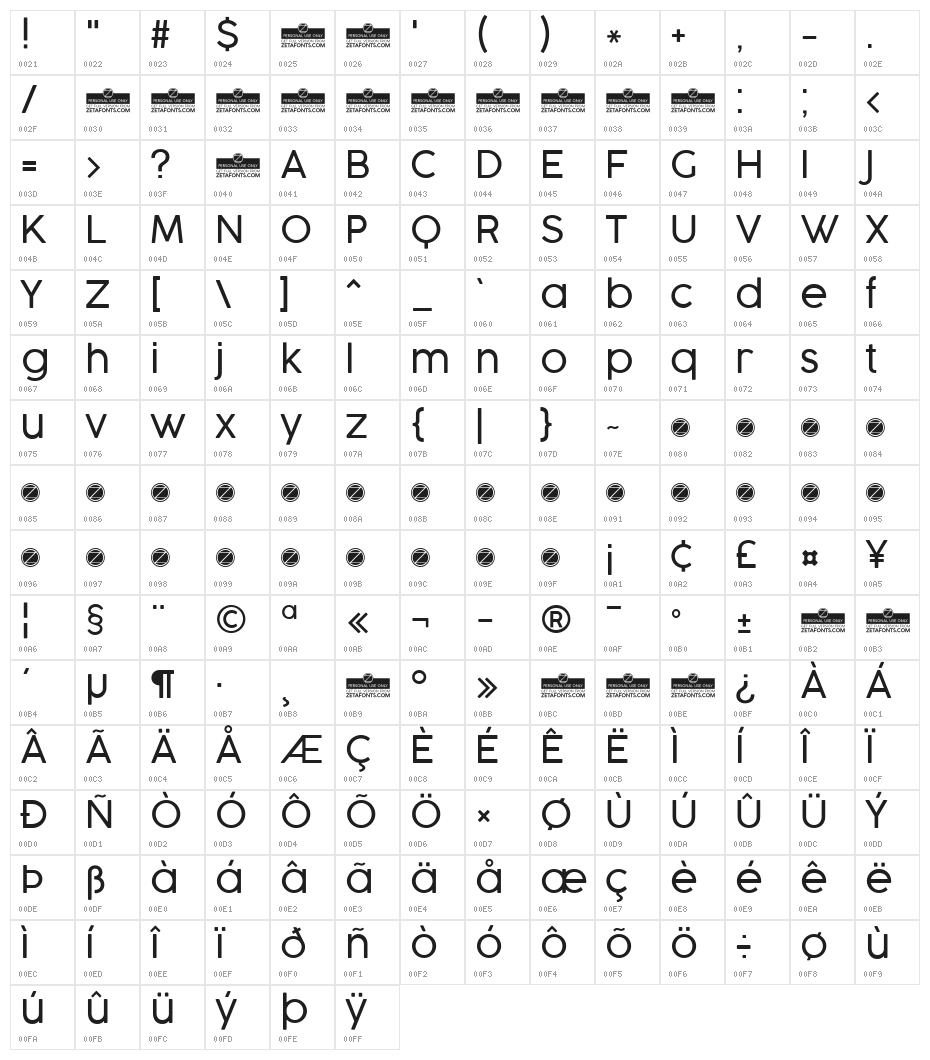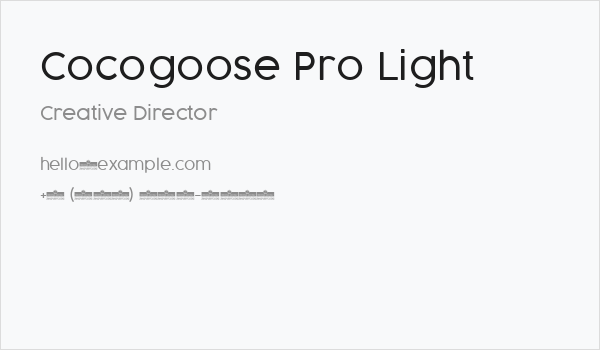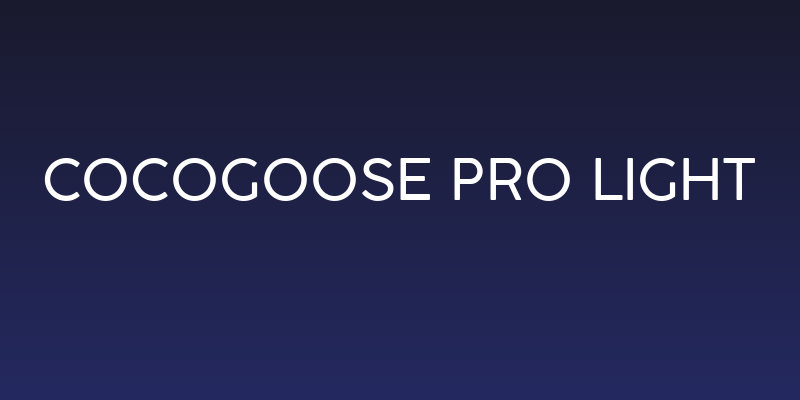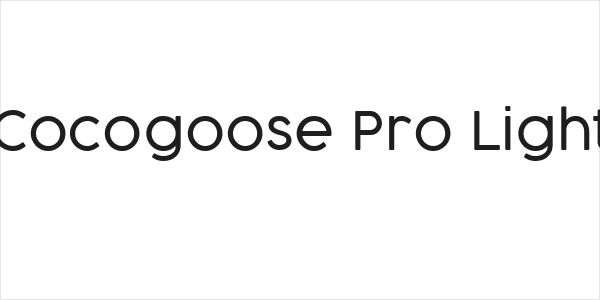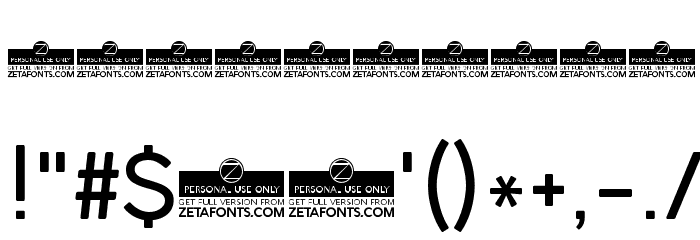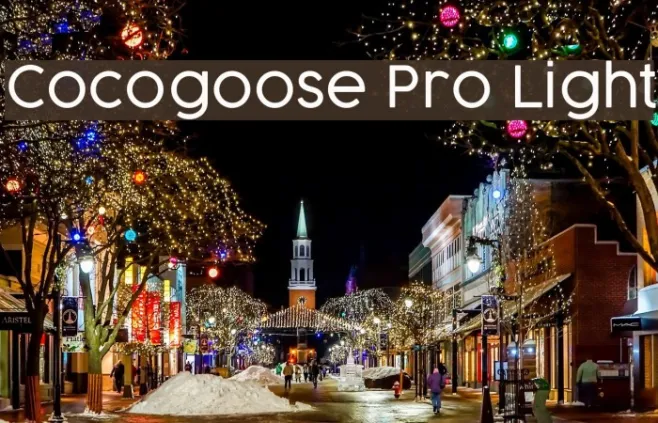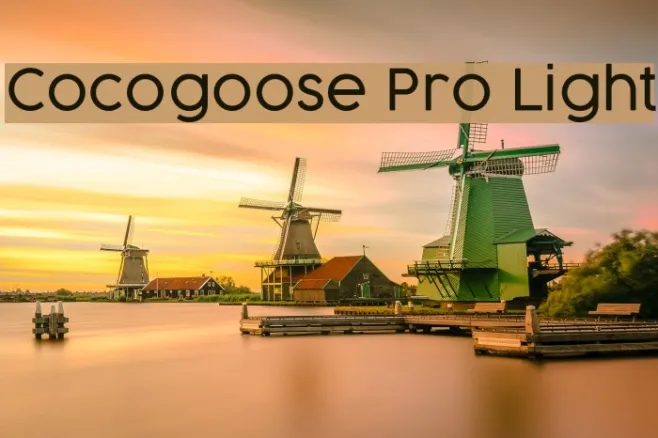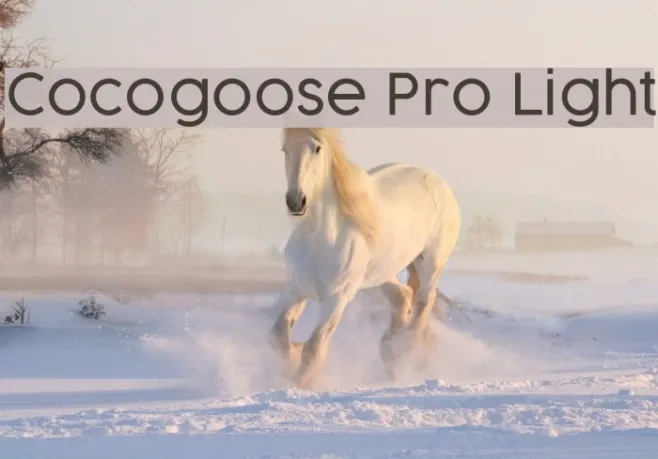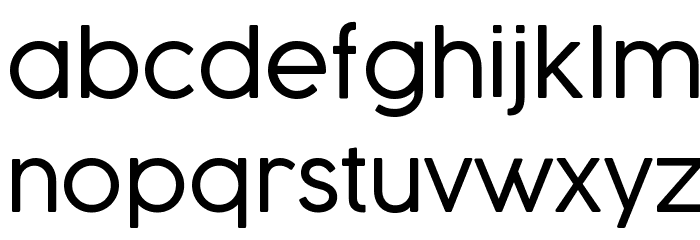
Cocogoose Pro Light Font
Cocogoose Pro Light Description
This font features a clean and modern sans-serif design with a geometric structure. The characters are well-balanced, offering a harmonious appearance that is both professional and approachable. The uppercase letters are bold and assertive, while the lowercase letters maintain a friendly and inviting look. The numerals are clear and easy to read, making them suitable for various applications. Special characters are included, providing versatility for different design needs. The overall style is minimalistic, with a focus on readability and simplicity.
| Proposed Projects | Ideal for branding, web design, advertising, and editorial projects where clarity and modernity are essential. |